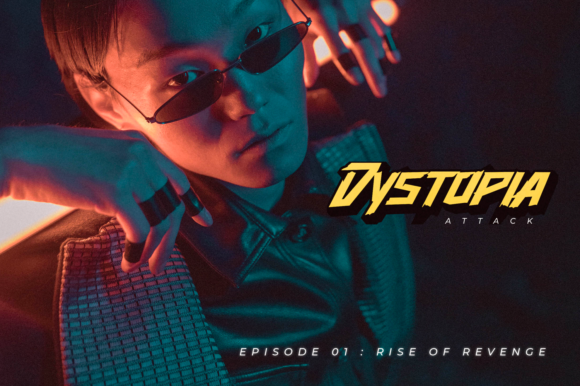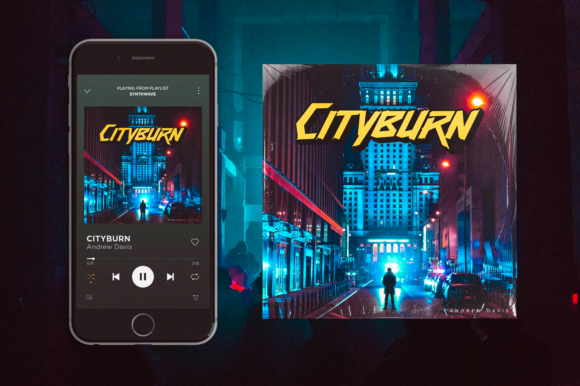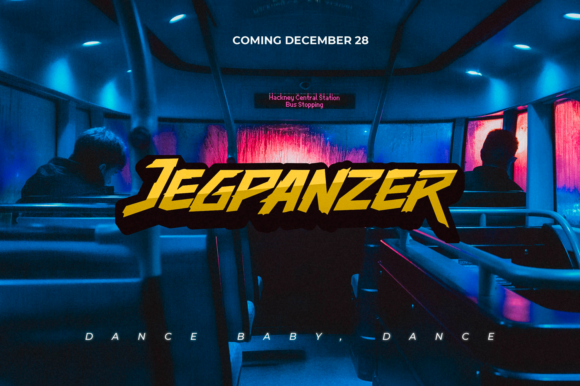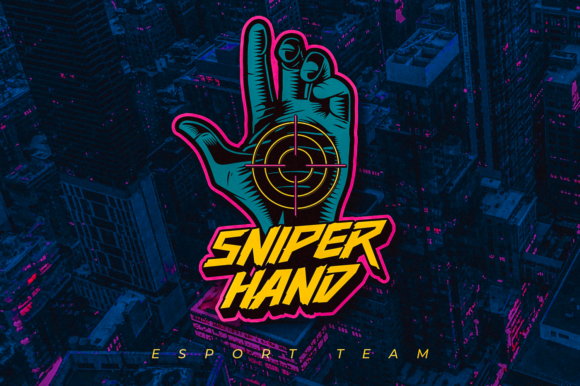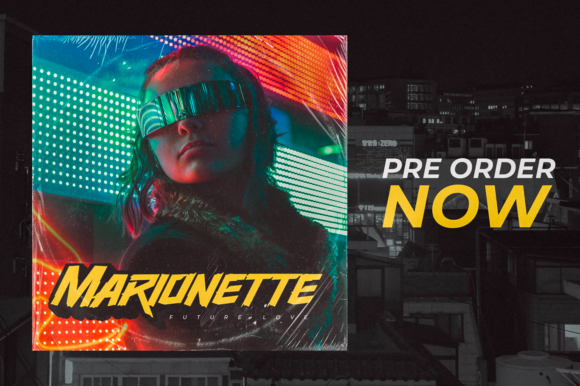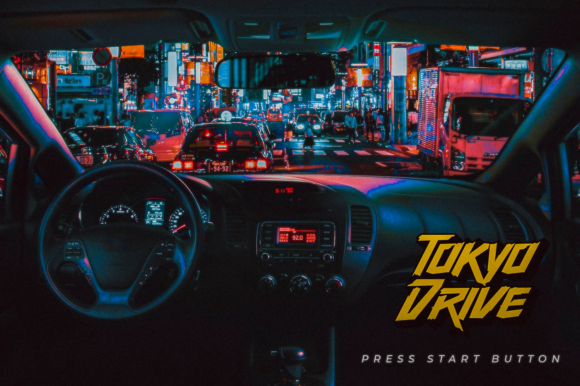
The Birth of a Bold Design: Unveiling the Cydekick Font
You know that feeling when a spark of creativity strikes, and you can’t wait to bring your idea to life? For designers, it’s that moment when a blank canvas turns into a masterpiece. For us, it’s the moment we discovered the Cydekick Font – a bold display font that embodies the essence of street art. With its edgy, urban vibe, Cydekick Font is perfect for designs that need to make a statement, from t-shirts and sportswear to logos, advertisements, and clothing.
As a valuable addition to any designer’s toolkit, the Cydekick Font offers endless possibilities for creative expression. Its versatility and bold aesthetic make it an ideal choice for designers looking to add a touch of urban flair to their projects. Whether you’re working on a fashion brand, a sports team, or a streetwear label, the Cydekick Font is sure to elevate your designs and leave a lasting impression.
- Font Family: Cydekick Font is a unique, hand-drawn font family designed to add a touch of whimsy and personality to digital designs.
- Character Count: The font family includes over 200 glyphs, including uppercase and lowercase letters, numbers, and punctuation marks.
- Unique Characteristics: Cydekick Font features a distinctive, hand-drawn style with subtle imperfections, giving it a warm and human touch.
Cydekick Font Review
Overall, I have mixed feelings about the Cydekick Font. While it has some interesting qualities, it also falls short in certain areas.
What works well: ✨
- Unique and quirky design, perfect for those who want to add a touch of personality to their projects.
- Great for use in social media graphics, posters, and other visually-oriented projects.
- The font’s eclectic feel can help to grab attention and create a lasting impression.
However, there are some limitations: ⚠️
- The font may not be suitable for use in body text, as it can be difficult to read due to its unconventional design.
- The font’s irregular spacing and character shapes can make it challenging to use in certain contexts.
- The font’s uniqueness may also make it feel overused or clichéd in certain design contexts.
Overall, I would recommend the Cydekick Font for projects where a bold, attention-grabbing design is desired. However, it’s not a good fit for projects that require clear, readable text.
Getting the Most Out of Cydekick Font
To get the most out of the Cydekick Font, consider the following tips:
– Use the font for headings and titles to add a touch of elegance.
– Experiment with different font sizes and styles to create visual interest.
– Pair the font with other elegant fonts for a cohesive look.
The Cydekick Font is commonly used for:
– Wedding invitations and stationery.
– Luxury brand designs.
– High-end marketing materials.